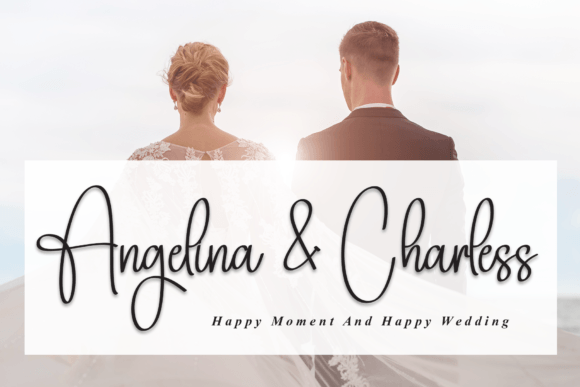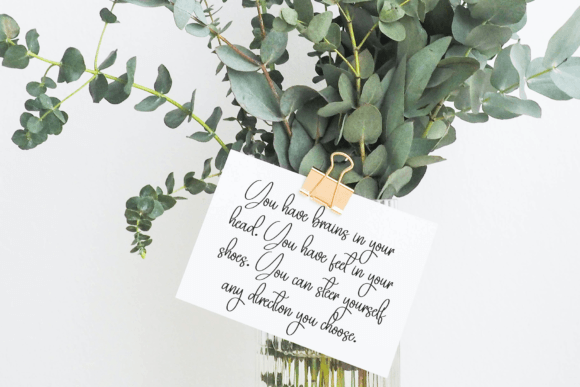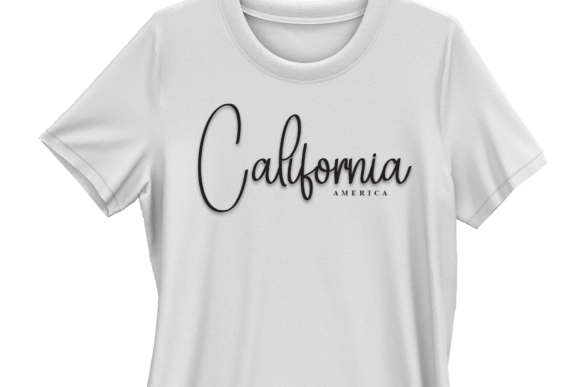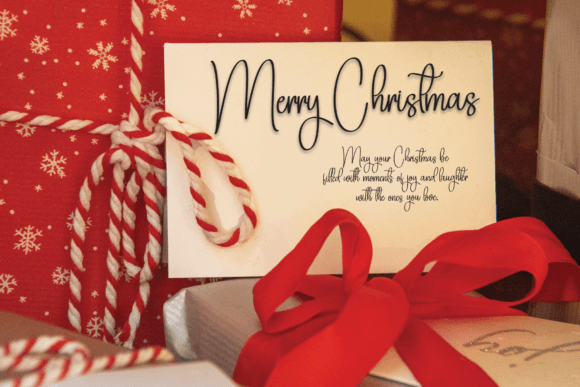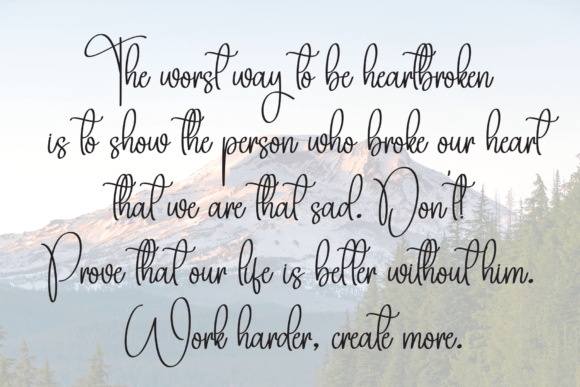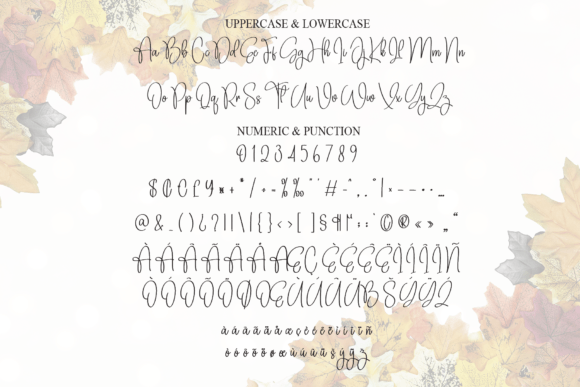
The Cozy Charm of Autumn Signature Font
There’s something magical about curling up with a warm cup of coffee and a blank page, waiting for inspiration to strike. As a designer, you know that moment when the perfect font pops into your head, and your project suddenly comes to life. For me, that moment arrived when I stumbled upon the Autumn Signature Font – a beautiful handwritten font that embodies the essence of a crisp autumn day.
With its elegant curves and smooth lines, Autumn Signature Font is perfect for creating personal and warm designs, such as invitations, greeting cards, or logos. Its relaxed and stylish feel adds a touch of creativity to your projects, making it a valuable asset for any designer looking to add a little extra magic to their work.
Autumn Signature Font Key Features
- Font Family: Autumn Signature Font is a unique, hand-drawn font designed for personal and commercial use.
- Unique Characteristics: Distinctive, handwritten style with organic and natural elements, perfect for creating a warm and inviting atmosphere.
Autumn Signature Font Review
I recently had the chance to work with the Autumn Signature Font, and I must say, it’s a lovely addition to any design project. ✨ The font’s elegant, handwritten feel instantly evokes a sense of coziness and warmth, perfect for autumn-themed designs or any project that needs a touch of sophistication.
The Autumn Signature Font is highly versatile, making it suitable for a wide range of applications, including:
- Blog posts and articles
- Invitations and event promotions
- Product labels and packaging
- Printable art and quotes
- ⚠️ The font may not be suitable for large blocks of text, as it can become difficult to read at larger sizes.
- ⚠️ Some users may find the font’s style too cursive or script-like, which may not appeal to those who prefer a more straightforward typography.
Overall, I think the Autumn Signature Font is a great choice for designers looking to add a touch of elegance and warmth to their projects. While it may have some limitations, its unique style and versatility make it a valuable addition to any design toolkit.
The Autumn Signature Font is perfect for:
- Creating seasonal graphics and designs for fall-themed events.
- Designing custom logos and branding materials.
- Adding a touch of autumnal charm to wedding invitations and stationery.
Remember to experiment with different font sizes, colors, and styles to get the most out of this beautiful font.
Pacifico is a beautiful, elegant script font that works well for invitations, weddings, and other formal events. It has a softer, more romantic feel compared to Autumn Signature Font, making it perfect for feminine designs.
Comparison to Autumn Signature Font: While both fonts have a similar feel, Pacifico is more delicate and less bold. It’s a great choice for designs where you want to convey a sense of luxury and sophistication.
Great Vibes is a modern script font that’s perfect for creating a fun, energetic vibe. It’s great for social media graphics, advertisements, and other promotional materials where you want to grab attention.
Comparison to Autumn Signature Font: Great Vibes is more playful and dynamic compared to Autumn Signature Font, making it ideal for designs where you want to convey a sense of excitement and energy.
Carolyna Pro is a elegant, modern script font that works well for a variety of designs, from fashion to food labels. It has a clean, minimalist feel that’s perfect for creating a sophisticated look.